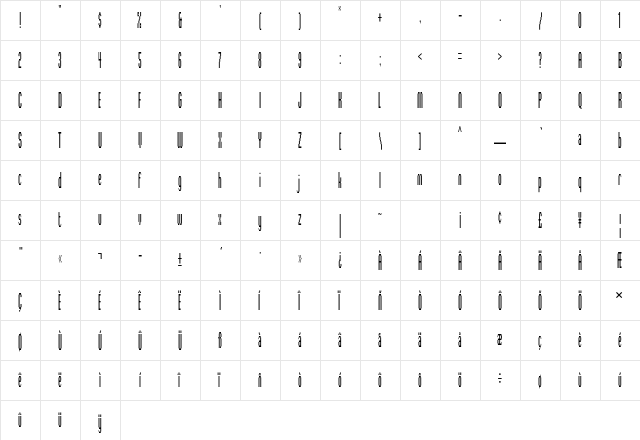
Digitek Std Regular
| Designer | David Quay |
Design Context for Digitek Std Typeface
Digitek Std channels digital-age aesthetics through its sharp, structured letterforms — ideal for brands that want to signal innovation.